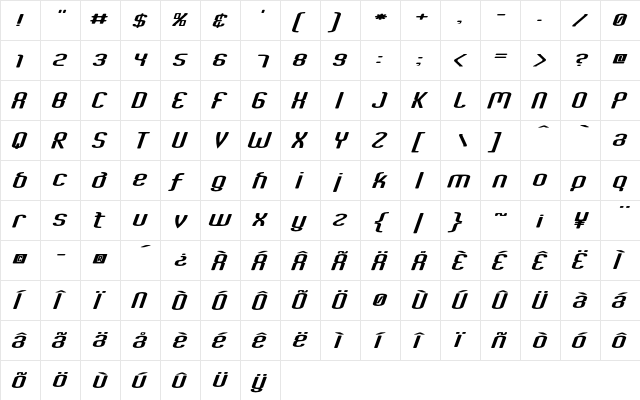
CriminalItalic Regular
Design Context for CriminalItalic Typeface
CriminalItalic offers clean, dependable letterforms without strong stylistic allegiance, making it a practical choice for designers who need flexibility. The dynamic lean of this cut emphasises speed and emphasis in any layout.
Pro Tip: Use CriminalItalic for emphasis, pull quotes, and subheadings where its slanted energy can add rhythm to the layout.